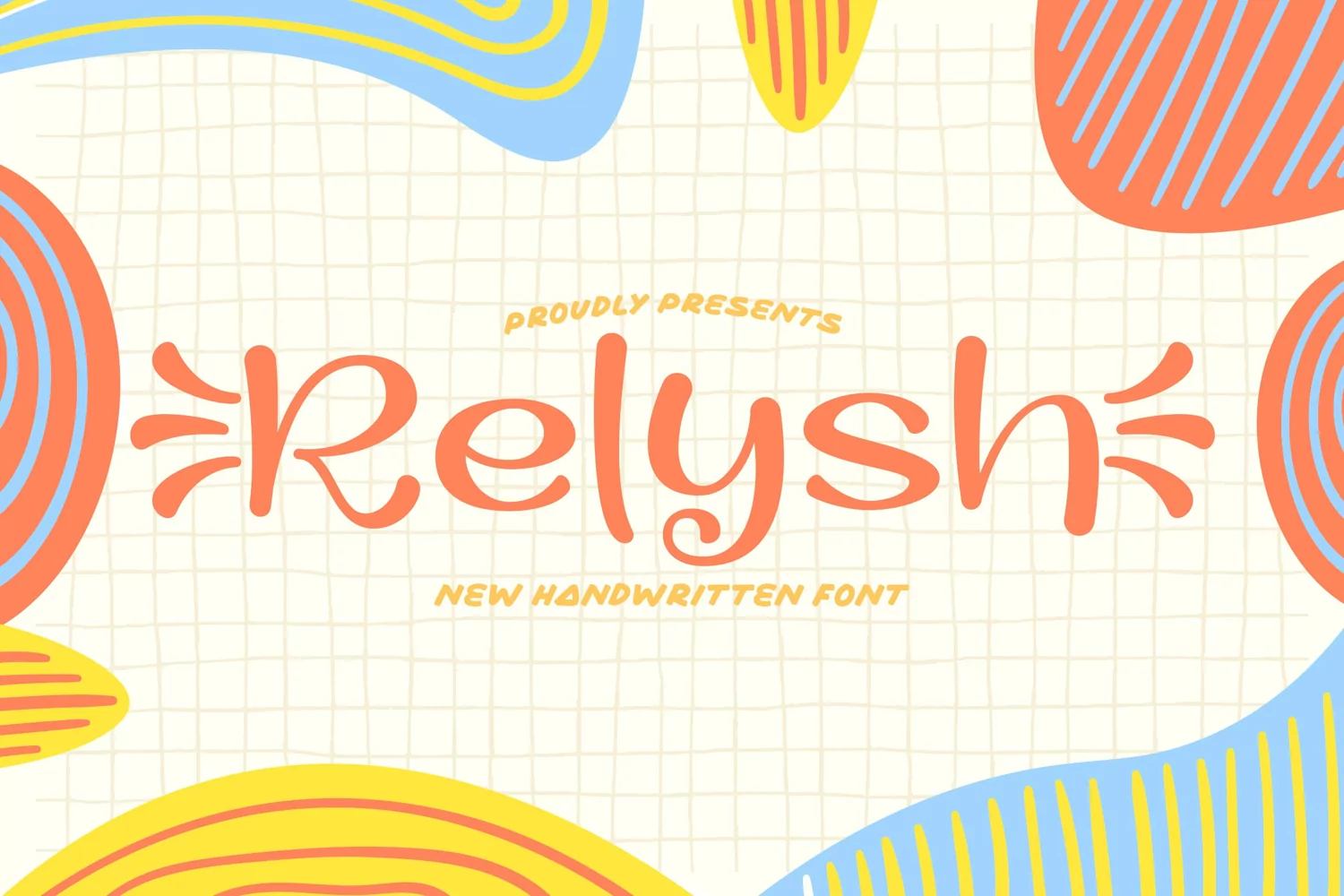
Relysh is a handwritten font which you can use and enjoy for anything from promotional material and handwritten quotes, to product packaging, merchandise and branding projects.